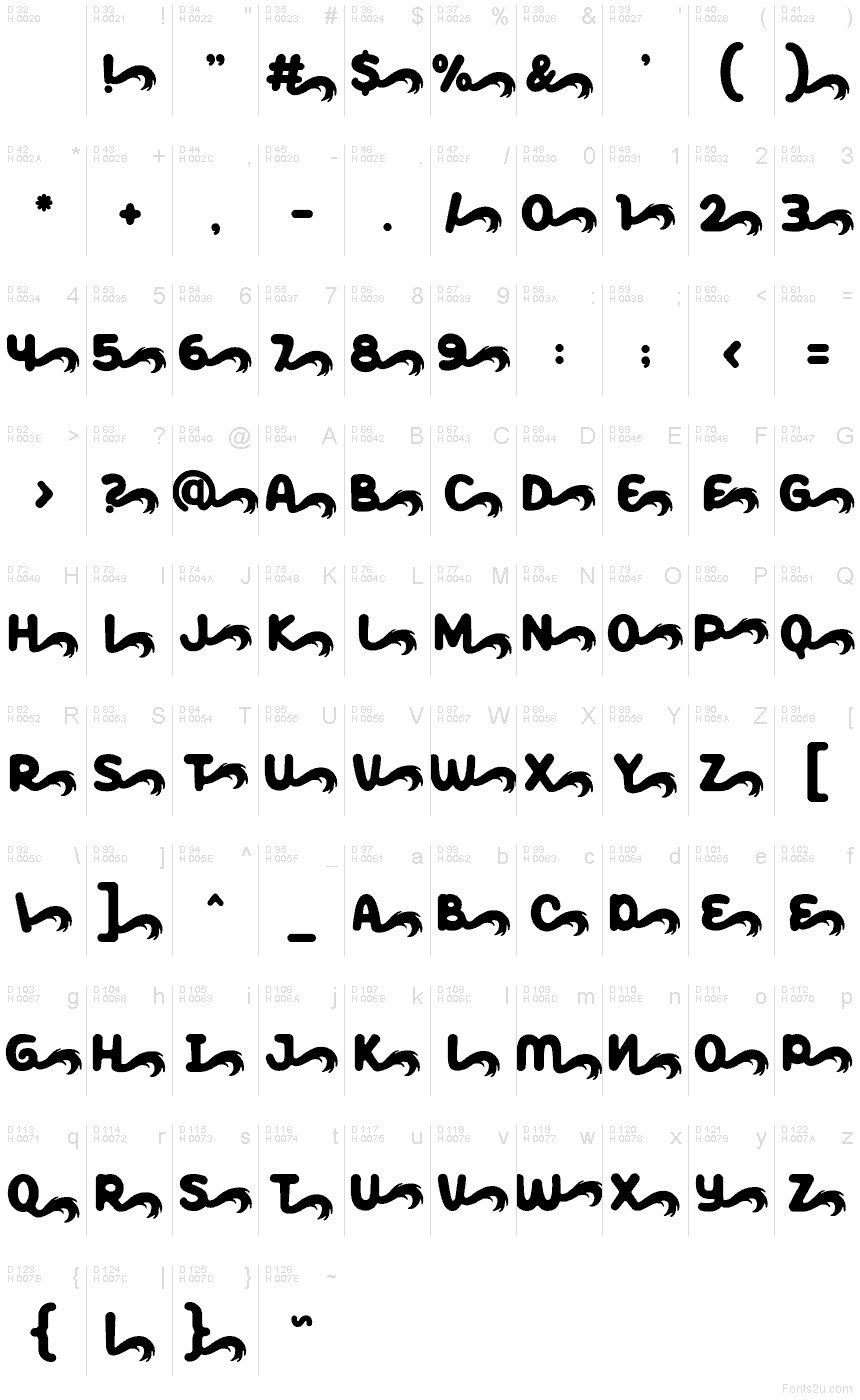
Peppy Pegasus Tail
Peppy Pegasus Tail font by PutraCetol Studio is a bold and decorative display typeface. Its nostalgic and flowy style takes inspiration from retro typography while incorporating a cool aesthetic that holds contemporary appeal. Decorative elements dominate this playful font, which simultaneously portrays a cheery and elegant aura highlighted through its different letter shapes.